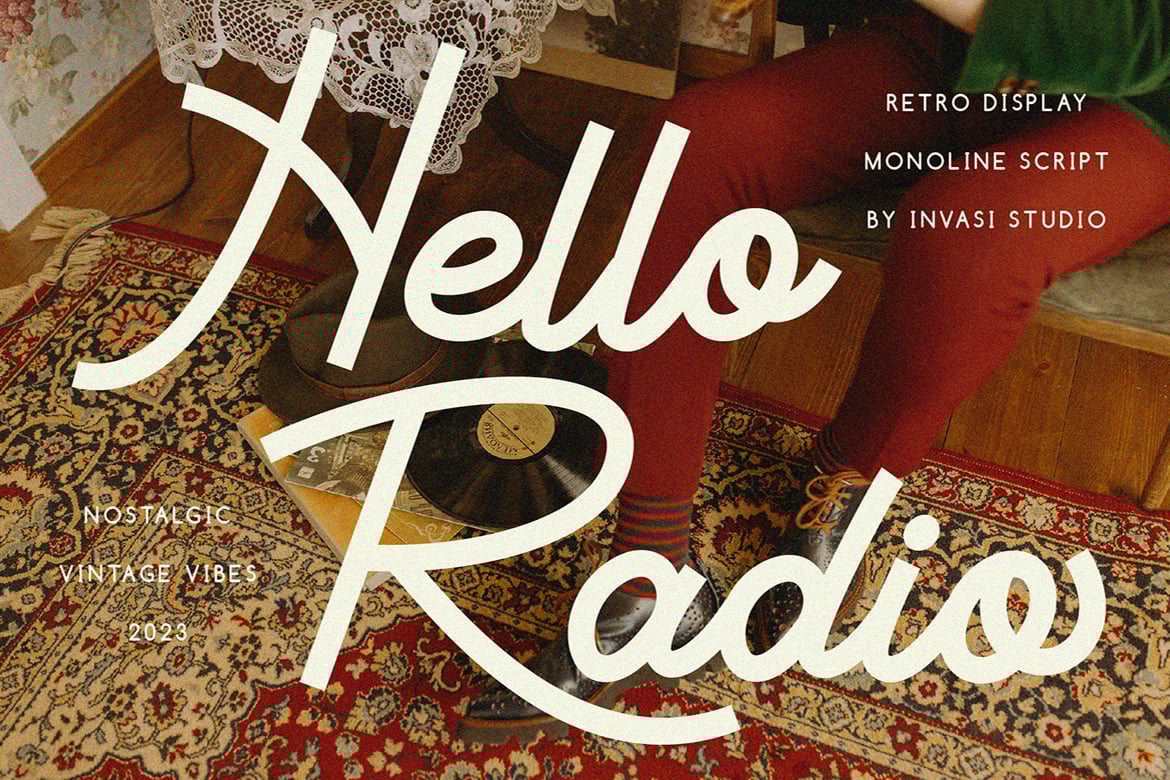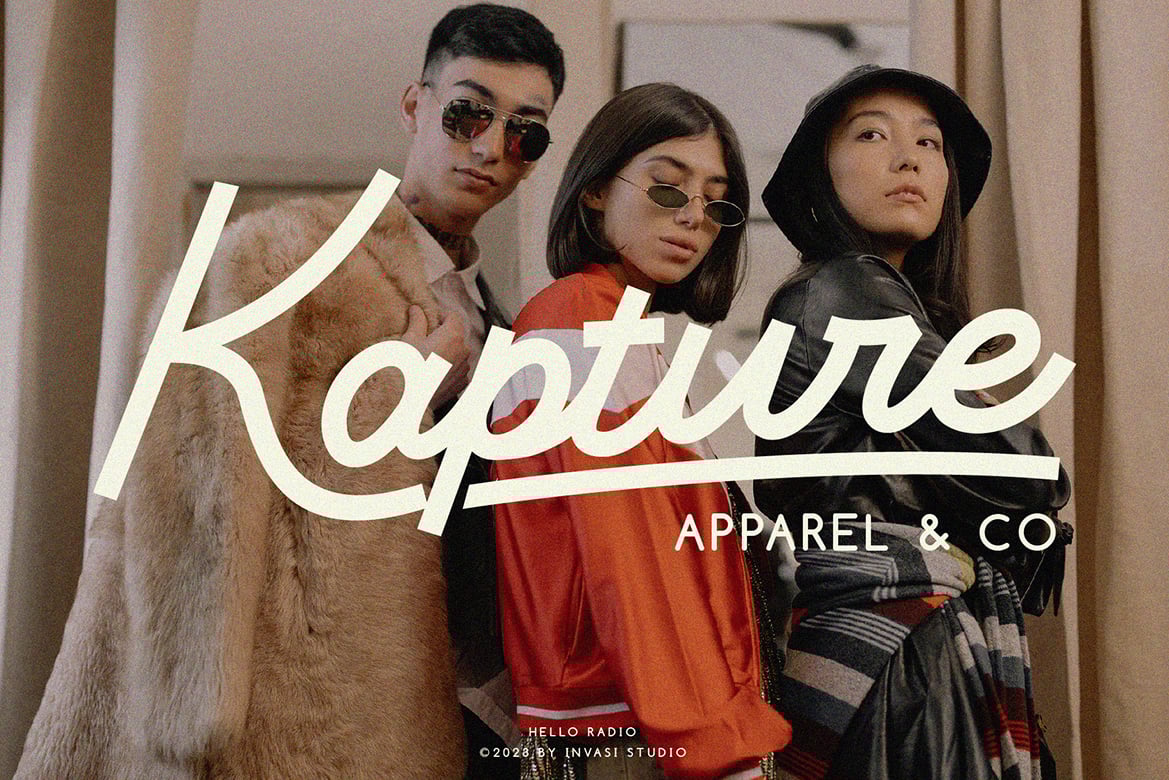
Hello Radio – Vintage Monoline Script Font
Hello Radio has the even, single-weight line of a neon tube or a sign painter’s brush. Invasi Studio drew it in 2023 as a retro monoline script, with big looping capitals and a lowercase that connects in easy, rounded joins. The R in “Radio” swings far out to the left, which gives the logo its shape.
Best uses for Hello Radio
• Retro clothing and merch logos
• Diner, barbershop and coffee shop signs
• Vintage-style labels and badges
• Record shop and radio show branding
• Greeting cards and posters
A spaced-out sans in capitals is the classic partner for a monoline script. Josefin Sans matches the vintage mood, as in the specimen’s small lines. Oswald gives a stronger, condensed contrast. For text, Karla keeps things friendly.
Can I use Hello Radio font for a clothing brand?
What free script is similar to Hello Radio?
Yellowtail and Damion are open-licence retro scripts. Yellowtail is the closer match for the 1950s look, though its stroke has a little more contrast.
Does Hello Radio work for embroidery or vinyl cutting?
Monoline scripts like Hello Radio are a good fit because the stroke width is even. Keep the size reasonable so thin joins don’t break in the cut or stitch.